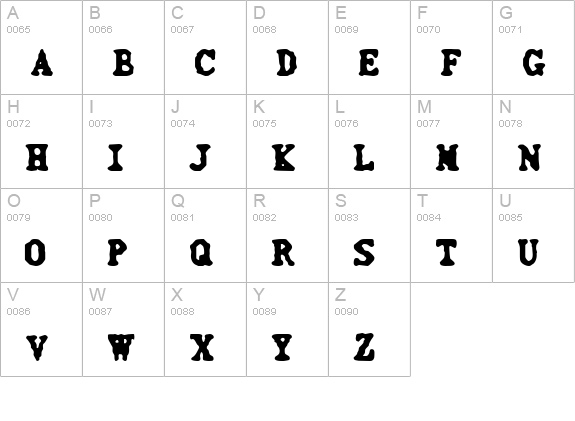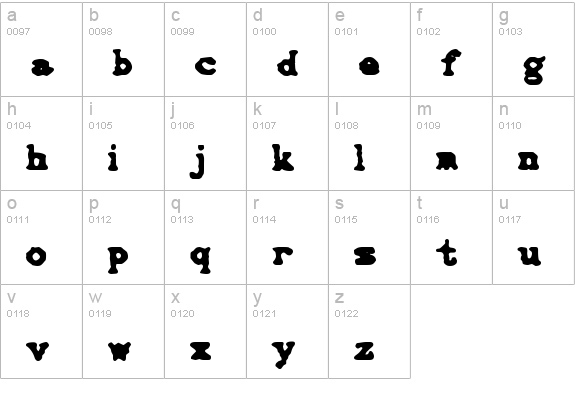
Introducing the exquisite and versatile 3000 font, a stunning typeface that is sure to captivate your audience with its elegance and sophistication. This font boasts a perfect balance of modernity and timeless charm, making it ideal for a wide range of design projects. What sets the 3000 font apart is not only its impeccable design but also the fact that it is available for free download at FontsMarket.com. That's right, you can elevate your creative projects with this premium font without spending a dime. Whether you're working on branding materials, invitations, posters, or any other design project, the 3000 font is here to add a touch of class and refinement. With its sleek lines, graceful curves, and impeccable spacing, the 3000 font is a true masterpiece that will bring your designs to life. Download it for free today and unleash your creativity like never before.